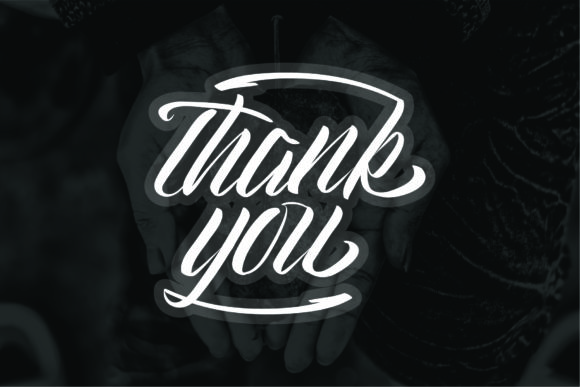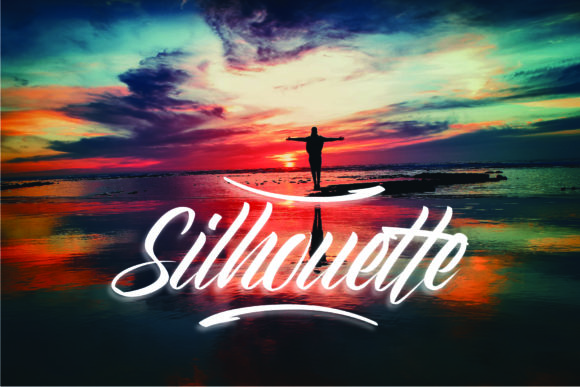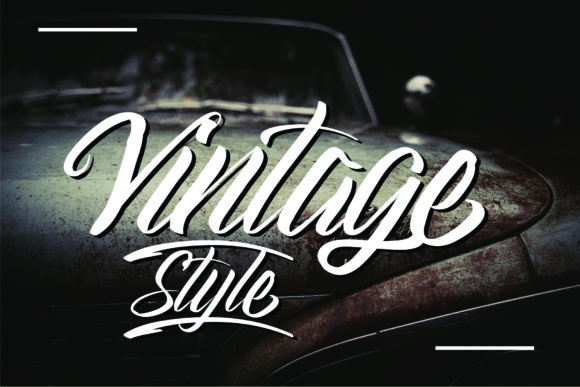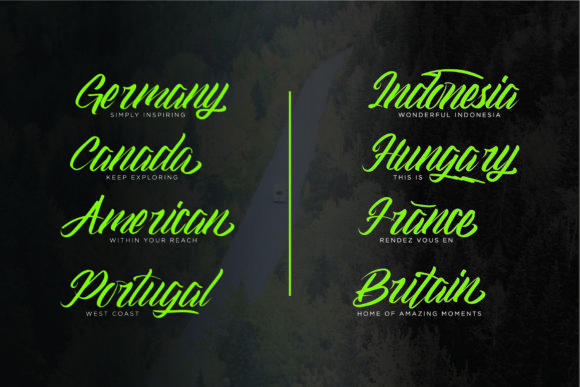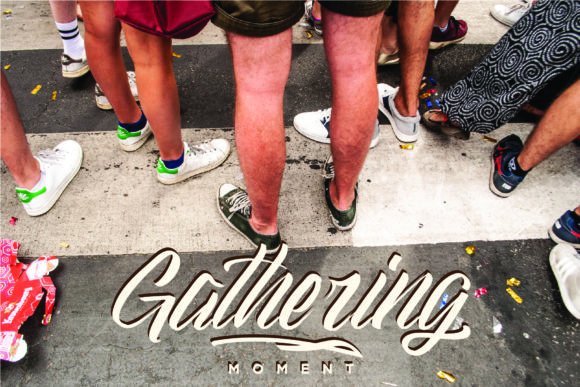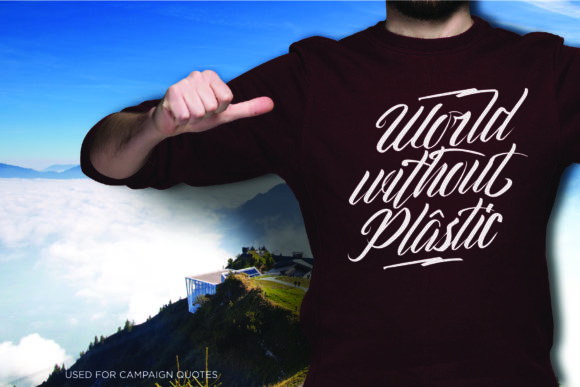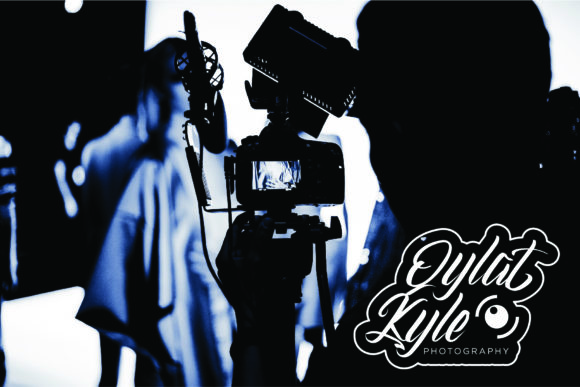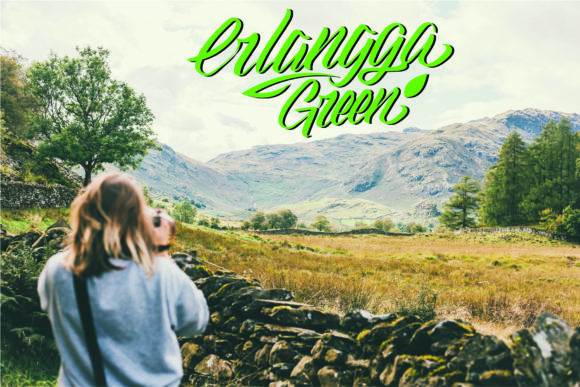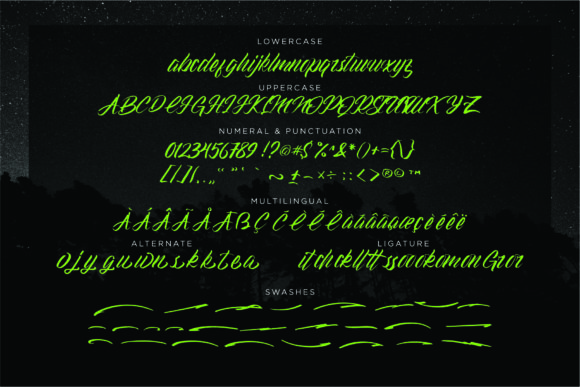
Gramattica Font
About Gramattica Font
The Gramattica is a modern script font. It has a vintage style which can be used in a wide range of projects.
Gramattica is perfect for branding projects, logos, wedding designs, social media posts, advertisements, product packaging, product designs, label, photography, and any other projects that need a handwriting taste.